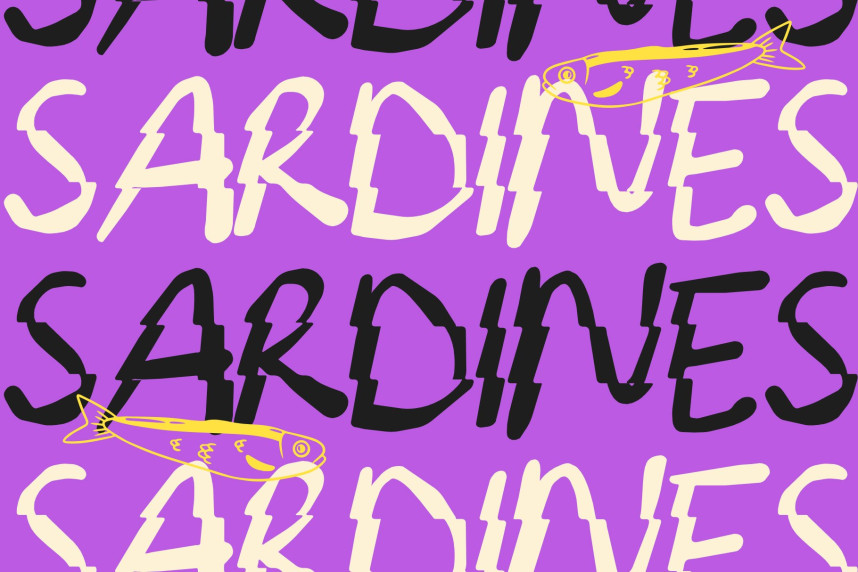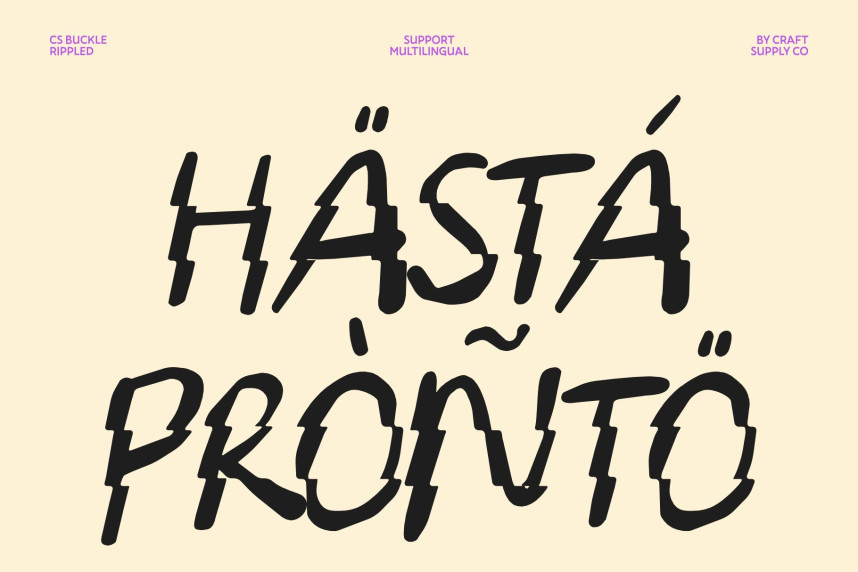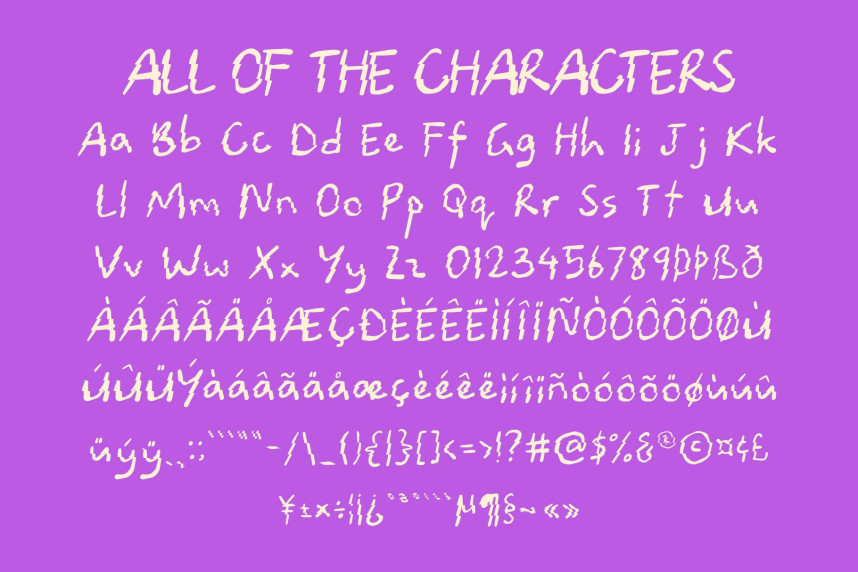
CS Buckle Rippled Font
CS Buckle Rippled Font – Imperfect Bold Font with Playful Rebellious Motion
Ugly Yet Bold Sans Serif with Irregular Expression
This is a bold and deliberately imperfect sans serif font that embraces chaos, irregularity, and creative freedom. Designed to break traditional typographic rules, its uneven strokes and unpolished shapes create a raw and energetic visual identity. This font turns “ugliness” into a design strength, delivering a fearless and unconventional aesthetic.